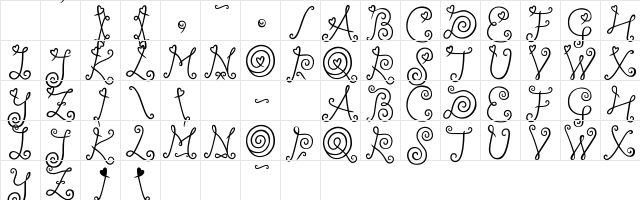
ylee DALKOM Roll Cake Regular Free Font
ylee DALKOM Roll Cake Regular
Design Context for ylee DALKOM Roll Cake
ylee DALKOM Roll Cake is a composed and adaptable typeface that performs quietly and consistently across a wide range of design contexts.